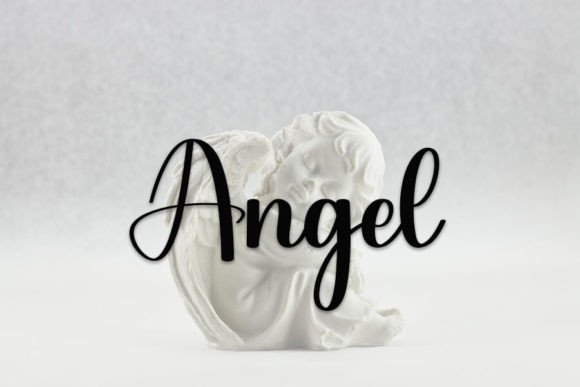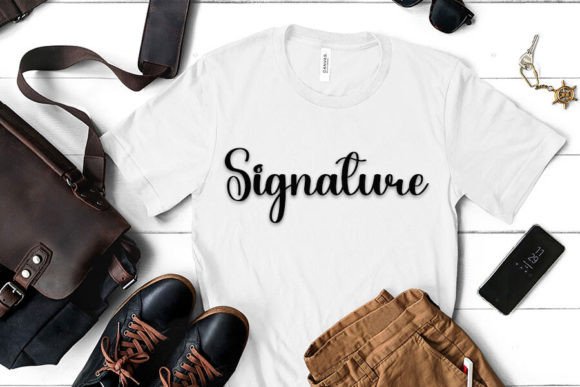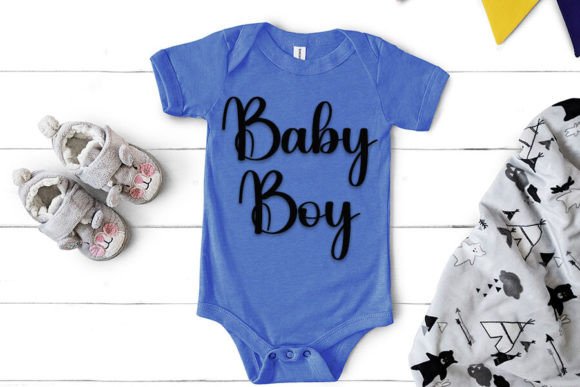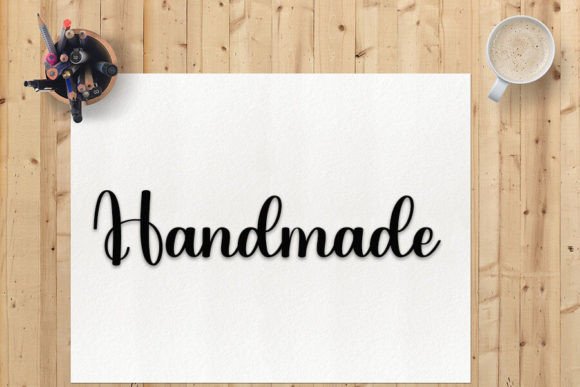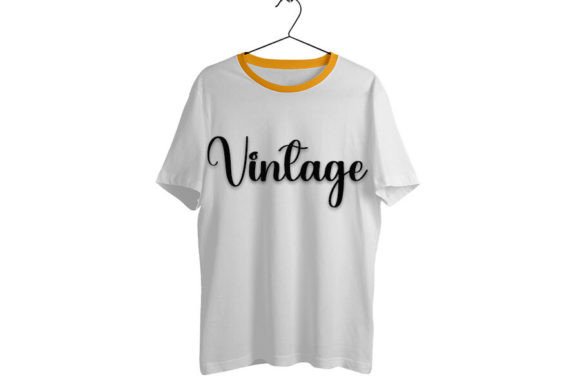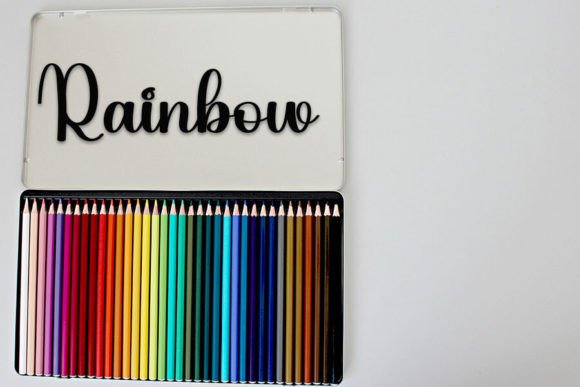
Discover the Divine Beauty of Heaven Font: Elevate Your Designs to New Heights
Are you on the hunt for a font that embodies elegance, sophistication, and a touch of modern flair? Look no further than Heaven Font, a stunning handwritten typeface that is sure to capture your heart. Designed with meticulous attention to detail, Heaven Font seamlessly blends classic calligraphic influences with a contemporary twist, making it the perfect addition to your design arsenal.
The Essence of Heaven Font
Heaven Font is more than just a collection of letters; it’s an exquisite handwritten font that exudes refinement and poise. Its masterful design ensures that it stands out in any project, whether you’re working on a logo, branding materials, packaging, or digital content. The font’s classy calligraphic roots are evident in its fluid strokes and elegant letterforms, yet it feels refreshingly modern and versatile.
Why Fall in Love with Heaven Font?
So, what makes Heaven Font so special? Here are a few reasons why designers and crafters are falling in love with this beautiful typeface:
• Timeless Elegance: Heaven Font’s calligraphic influences give it a timeless quality that never goes out of style. Its elegant letterforms and flowing strokes evoke a sense of luxury and sophistication, making it perfect for high-end branding and design projects.
• Contemporary Flair: Despite its classic roots, Heaven Font feels remarkably contemporary and fresh. Its modern twist ensures that it will resonate with audiences of all ages and backgrounds, making it an excellent choice for designers who want to create something both nostalgic and current.
• Versatility: Heaven Font is incredibly versatile, suitable for a wide range of design applications. Whether you’re working on a logo, social media graphics, or website content, this font adapts effortlessly to any context, ensuring that your designs always look polished and professional.
• Easy to Read: One of the key benefits of Heaven Font is its exceptional readability. Even at smaller sizes, the font remains clear and legible, making it perfect for body text, headings, and titles.
Bring Your Projects to New Heights with Heaven Font
Heaven Font is more than just a font – it’s a design tool that can elevate your projects to new heights. By incorporating this exquisite handwritten font into your work, you’ll be able to:
• Enhance Brand Identity: Create a lasting impression with Heaven Font’s elegant and sophisticated letterforms. Perfect for logos, branding materials, and packaging, this font will help you establish a strong and memorable brand identity.
• Add Emotional Connection: Handwritten fonts like Heaven Font have a unique ability to create an emotional connection with audiences. By using this font in your designs, you’ll be able to add a touch of personality and warmth to your work.
• Stand Out from the Crowd: In a world where generic fonts are a dime a dozen, Heaven Font offers a refreshing alternative. Its distinctive style and flair will help your designs stand out in a crowded marketplace, capturing attention and driving engagement.
Tips for Using Heaven Font Effectively
To get the most out of Heaven Font, here are a few tips to keep in mind:
• Pair with Complementary Fonts: Combine Heaven Font with complementary fonts to create visual interest and hierarchy. Experiment with different font combinations to find the perfect balance for your design.
• Experiment with Colors: Don’t be afraid to experiment with different colors and textures to add depth and dimension to your designs. Heaven Font looks stunning in a range of colors, from rich jewel tones to soft pastels.
• Pay Attention to Spacing: Heaven Font’s elegant letterforms require careful attention to spacing. Make sure to adjust the tracking and kerning to ensure that your text looks polished and professional.
In conclusion, Heaven Font is a truly exceptional handwritten font that deserves a place in every designer’s toolkit. Its exquisite calligraphic influences, combined with a modern twist, make it the perfect choice for designers and crafters who want to create something both elegant and contemporary. Whether you’re working on a logo, branding materials, or digital content, Heaven Font is sure to elevate your projects to new heights. So why wait? Fall in love with Heaven Font and discover a world of design possibilities!